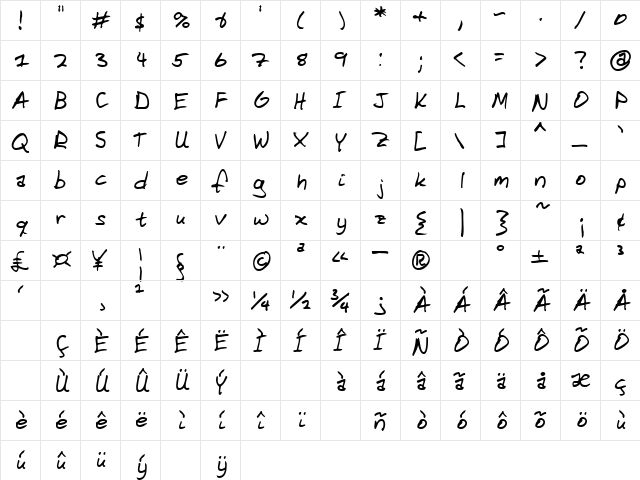
Domestic Manners Regular
| Foundry | Dustin Norlander |
| Designer | Dustin Norlander |
Design Context for Domestic Manners Typeface
Domestic Manners takes a measured approach to typography — its balanced proportions and neutral character make it a reliable workhorse for both digital and print work.
Pro Tip: Use Domestic Manners in both headline and body roles to test its range before committing to a single application.